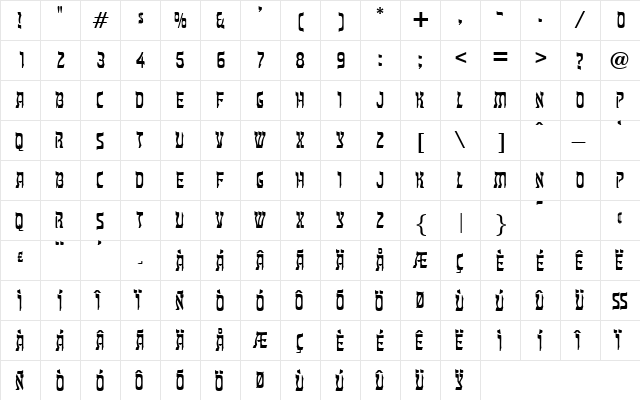
Massena Regular
Design Context for Massena Typeface
Massena is a composed and adaptable typeface that performs quietly and consistently across a wide range of design contexts.